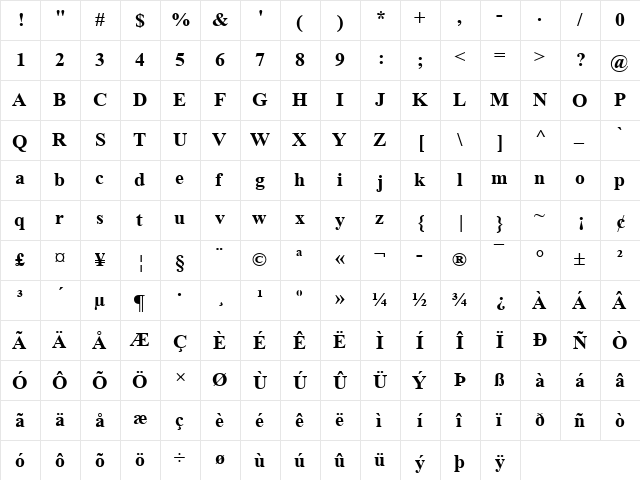
Shonar Bangla Bold
Design Context for Shonar Bangla Typeface
Shonar Bangla takes a measured approach to typography — its balanced proportions and neutral character make it a reliable workhorse for both digital and print work. Its bold stroke weight gives it real presence on the page.